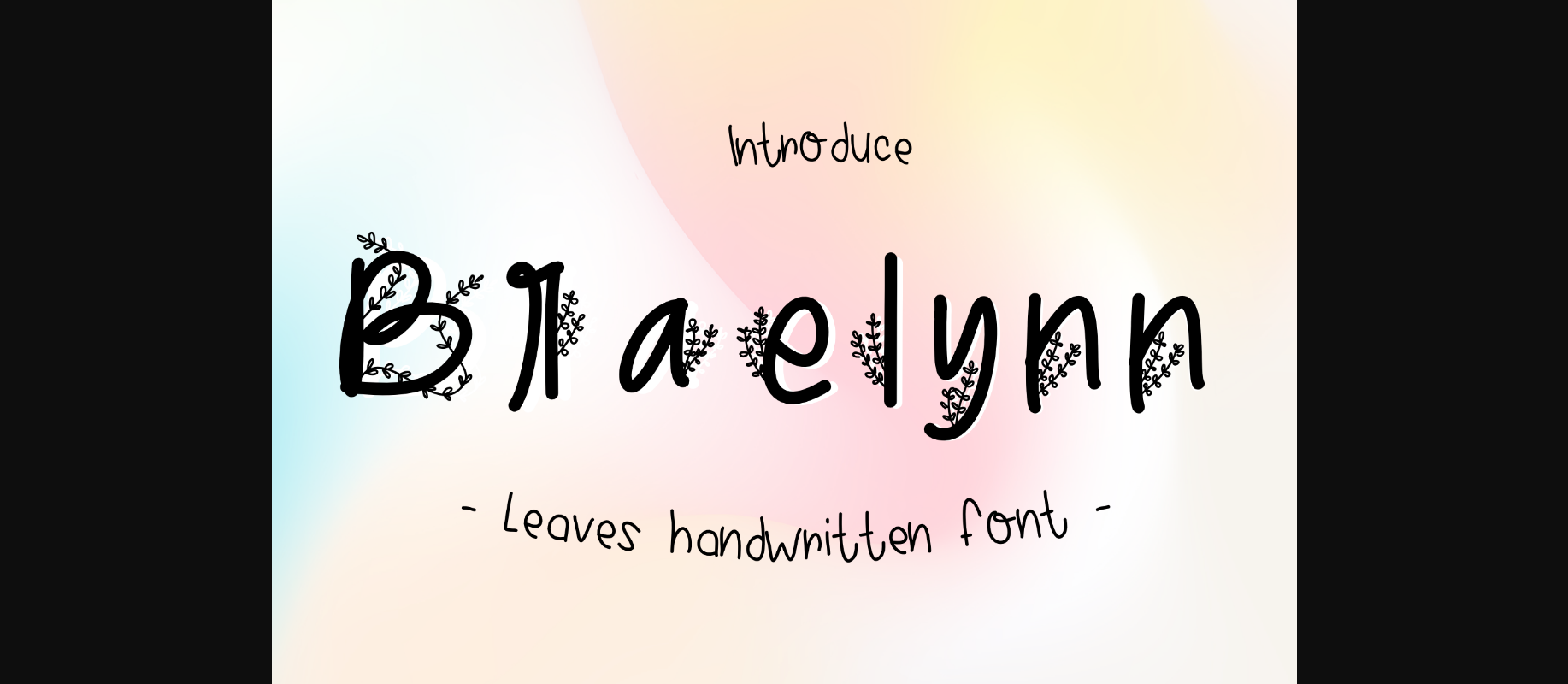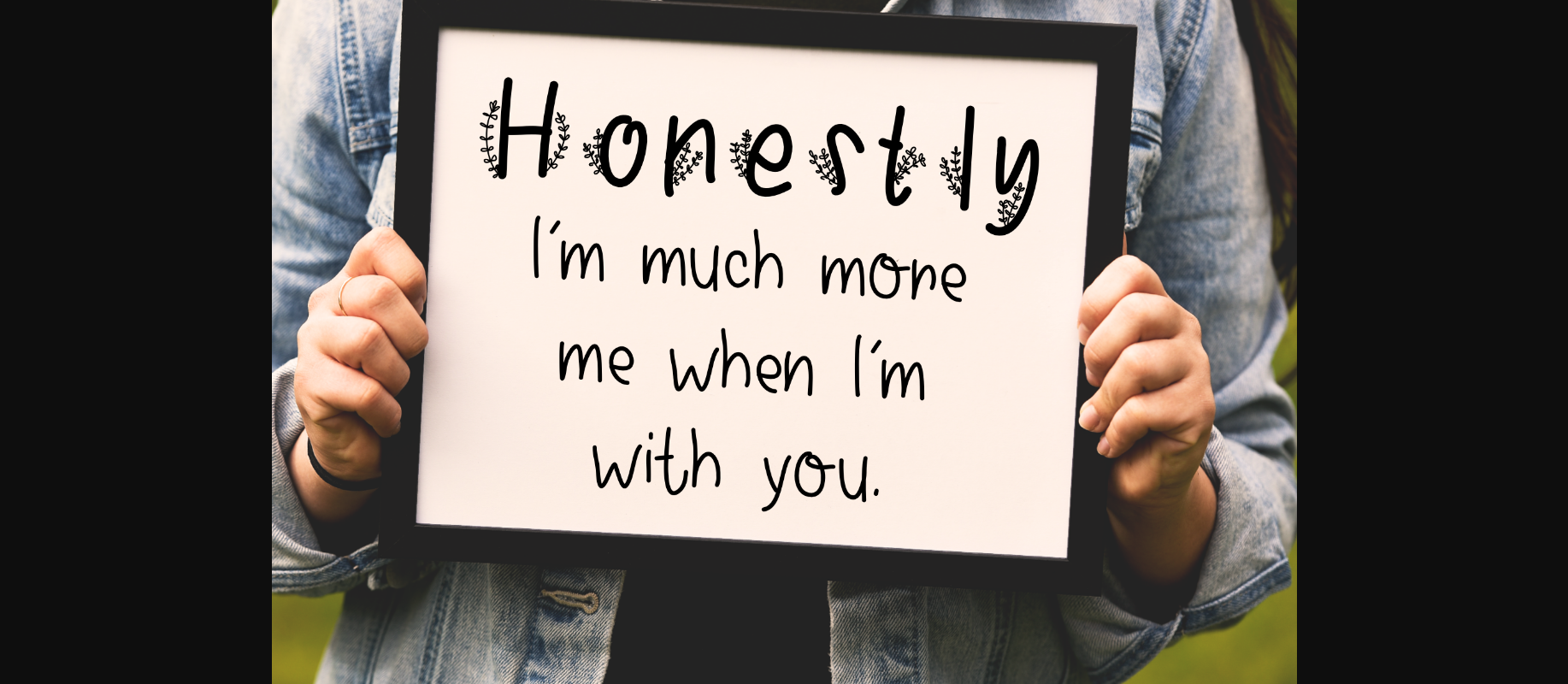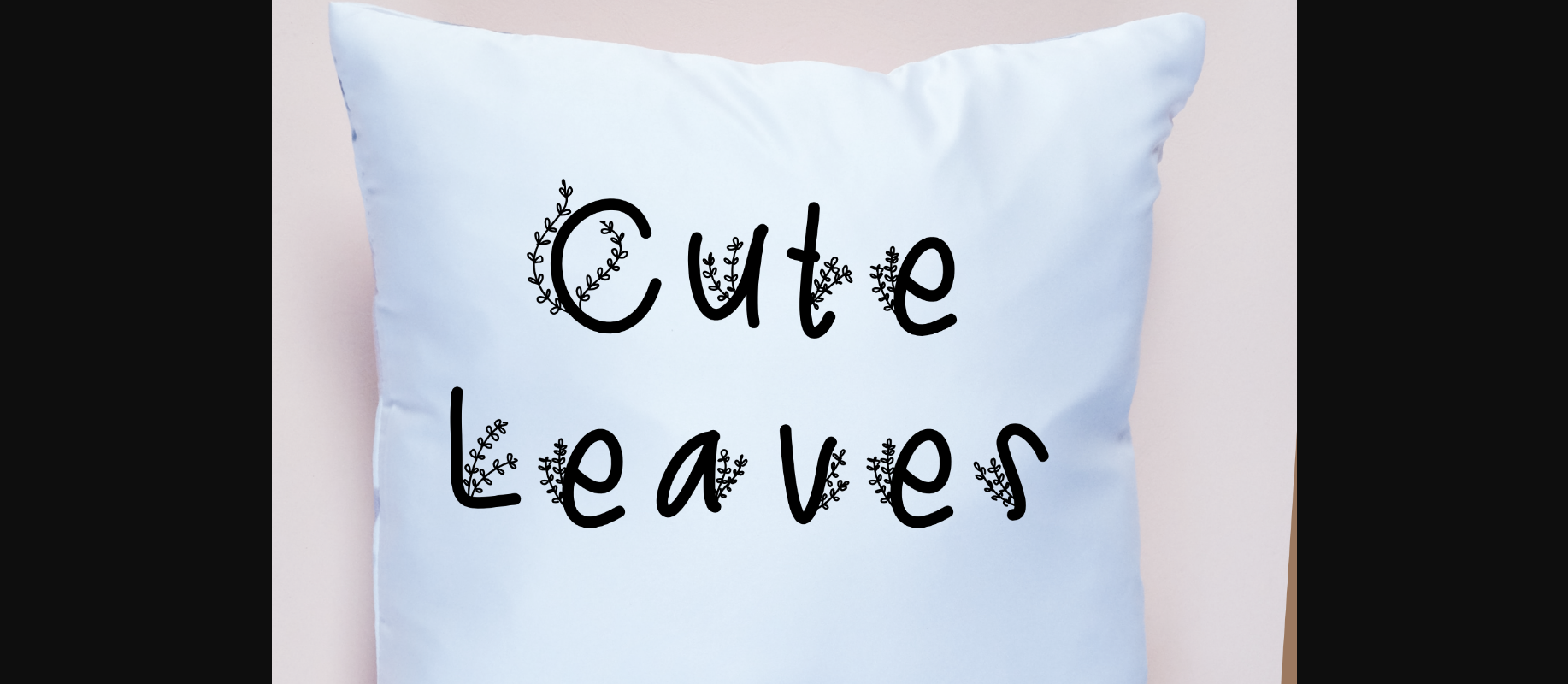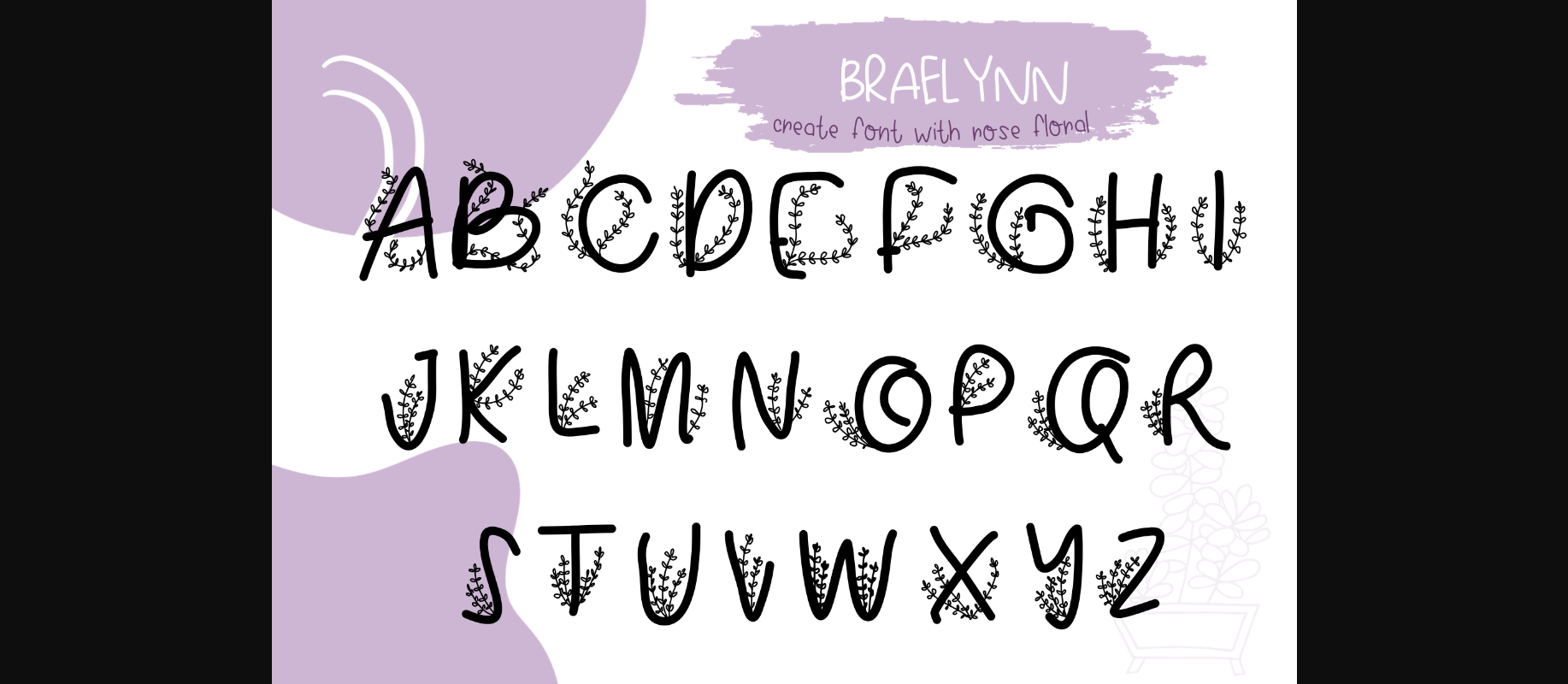
Braelynn Font
About Braelynn Font
Braelynn is a cute and friendly decorative font, featuring little wreaths as ornaments. Fall in love with its unique and lovely style and add it to your most creative ideas!